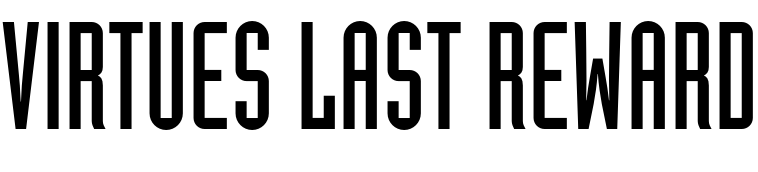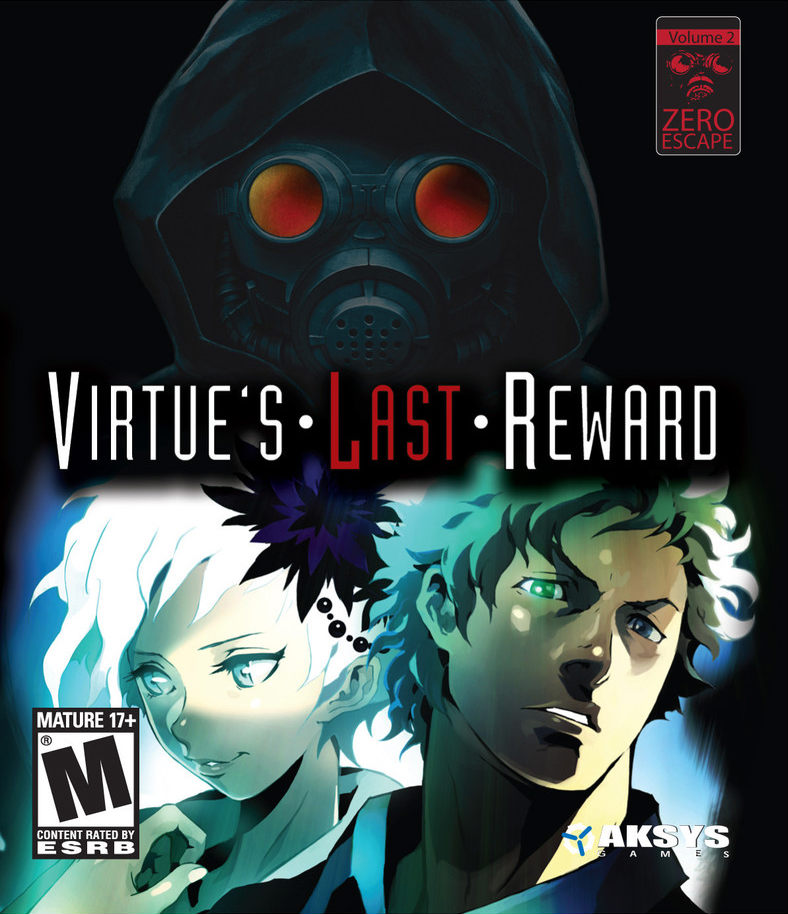
Virtue's Last Reward (Video Game) Font
Action & AdventureZero Escape: Virtue’s Last Reward is a 2012 adventure game developed by Chunsoft. It is the second installment in the Zero Escape series and was originally released for the Nintendo 3DS and PlayStation Vita. The game is set in a complex and mysterious facility known as the "Nonary Game," where nine people are forced to participate in a deadly game of survival.
The font used for the Zero Escape: Virtue’s Last Reward logo of the video game is very similar to Industria. It was designed by British designer Neville Brody and released in 1989 by Linotype GmbH as a condensed sans serif font. The font features a systematized mechanical structure with rounded corners and rectangular counter spaces. You can view more details about it here.